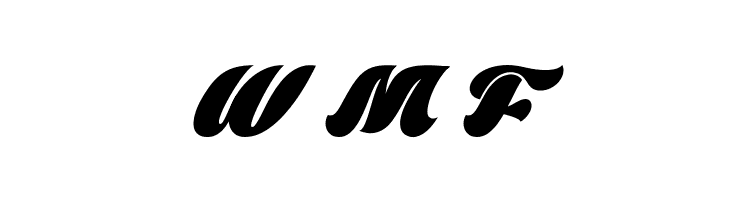
A high-contrast serif font with elegant, sharp serifs and a classic style.
A bold, classic serif font with high contrast and elegant details.
A modern, geometric font with thin, uniform lines and a minimalist style.
A modern, geometric font with clean lines and a minimalist aesthetic.
A modern, geometric font with clean lines and a futuristic look.
A modern, geometric font with bold lines and a futuristic style.
An elegant, flowing script font with interconnected letterforms and artistic curves.
A flowing, cursive script font with elegant, connected characters.
A playful and elegant swash-style font with bold, slightly condensed characters.
A playful and elegant font with swash-like curves and distinctive character shapes.
A playful and elegant swash font with a cursive-like quality.
A bold, dynamic script font with high contrast and flowing connections.
A bold, decorative blackletter style font with sharp, angular lines.
A bold serif font with strong strokes and pronounced serifs, offering a modern twist on traditional design.
A bold, dynamic script font with a sense of motion and elegance.
A hand-drawn, sketch-like font with a unique, artistic flair.
A monospaced font with a classic typewriter style, offering clarity and uniformity.